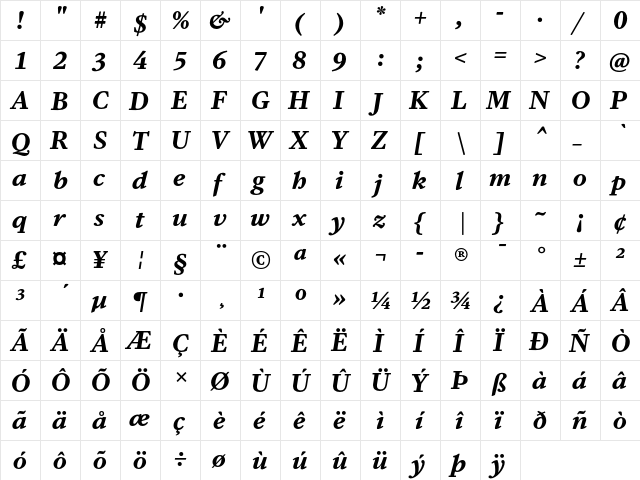
DB Serif TF Bold Italic Font Preview
Design Context for DB Serif TF Typeface
DB Serif TF carries the refined structure of traditional serif typography, with bracketed terminals and considered proportions that communicate credibility and craft. The slanted form adds forward momentum and visual energy. The heavy weight commands attention and anchors typographic hierarchies.
Pro Tip: Use DB Serif TF for editorial body copy and considered headline work. Pair with a neutral sans for UI elements or captions to create a classic hierarchy.